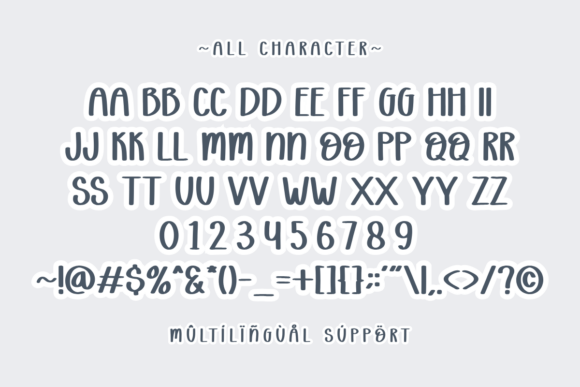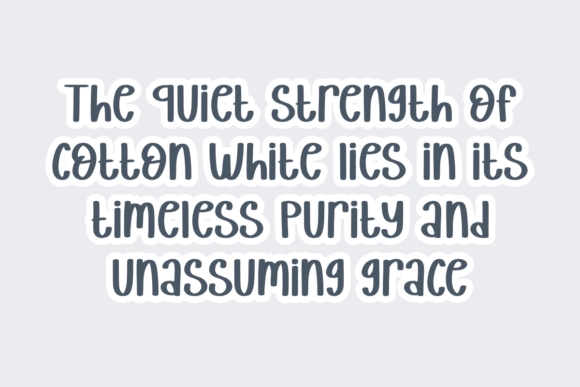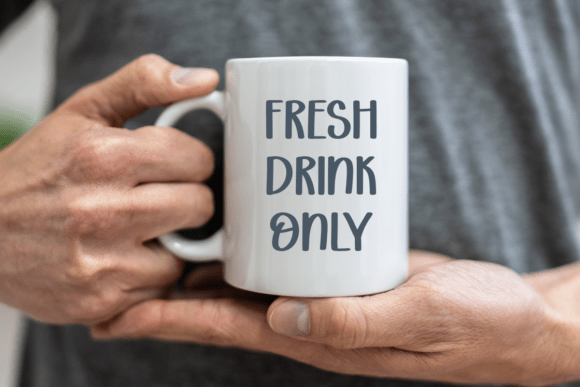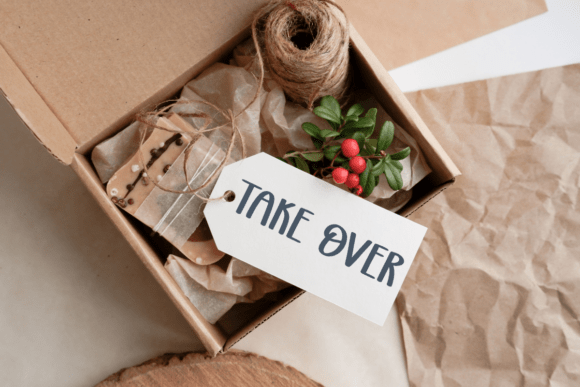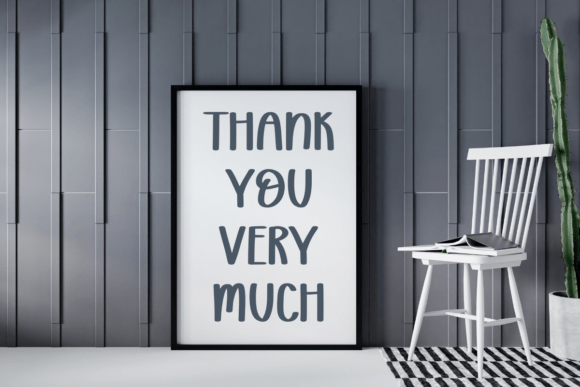
Cotton White Font: Add a Touch of Warmth and Personality to Your Designs
Are you looking for a font that can bring a warm and personal feel to your designs? Look no further than Cotton White, a cute handwritten font that’s perfect for a variety of projects. Whether you’re creating planners, journals, KDP interiors, stickers, t-shirts, or Cricut crafts, this font is sure to make your design look clean and aesthetic with minimal effort.
What is Cotton White Font?
Cotton White is a beautiful handwritten font designed by Funtype Co. to help you create stunning designs with ease. This font is carefully crafted to bring a natural and personal touch to your creations, making them stand out from the crowd. With its smooth and clean lines, Cotton White is perfect for designers and crafters who want to add a touch of warmth and personality to their work.
Key Features of Cotton White Font
• Cute Handwritten Style: Cotton White has a unique and adorable handwritten style that’s perfect for a variety of designs.
• Beginner-Friendly: This font is designed to be smooth and cut-friendly, making it perfect for beginners and experienced designers alike.
• Versatile: Use Cotton White to create a wide range of designs, from labels and tags to planner pages and greeting cards.
Cotton White is an incredibly versatile font that can be used for a variety of design projects. Here are some ideas to get you started:
• Planners and Journals: Add a personal touch to your planners and journals with Cotton White.
• KDP Interiors: Use this font to create beautiful and professional-looking interiors for your KDP books.
• Stickers and Labels: Create adorable stickers and labels with Cotton White.
• T-Shirts and Apparel: Design stunning t-shirts and apparel with this font.
• Cricut Crafts: Cotton White is perfect for Cricut crafts, including paper crafts, vinyl designs, and more.
Why Choose Cotton White Font?
There are many reasons why you should choose Cotton White for your design projects. Here are a few:
• Unique and Adorable Style: Cotton White has a unique and adorable handwritten style that’s sure to make your designs stand out.
• Time-Saving: With Cotton White, you can create beautiful designs quickly and easily, saving you time and effort.
• Support for Beginners: This font is designed to be beginner-friendly, making it perfect for new designers and crafters.
In conclusion, Cotton White is a beautiful and versatile handwritten font that’s perfect for a variety of design projects. With its unique and adorable style, ease of use, and compatibility with popular design software, this font is sure to become a favorite among designers and crafters. Whether you’re creating planners, journals, stickers, or Cricut crafts, Cotton White is the perfect choice for adding a touch of warmth and personality to your designs.